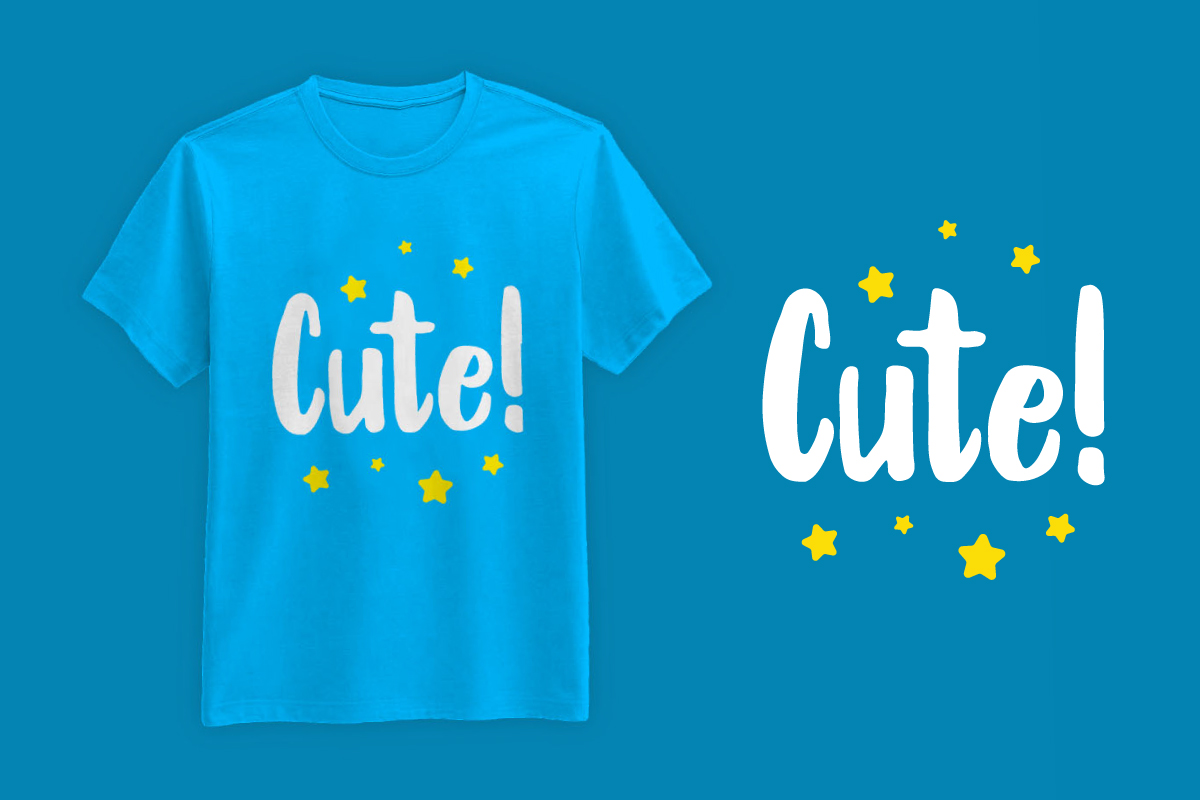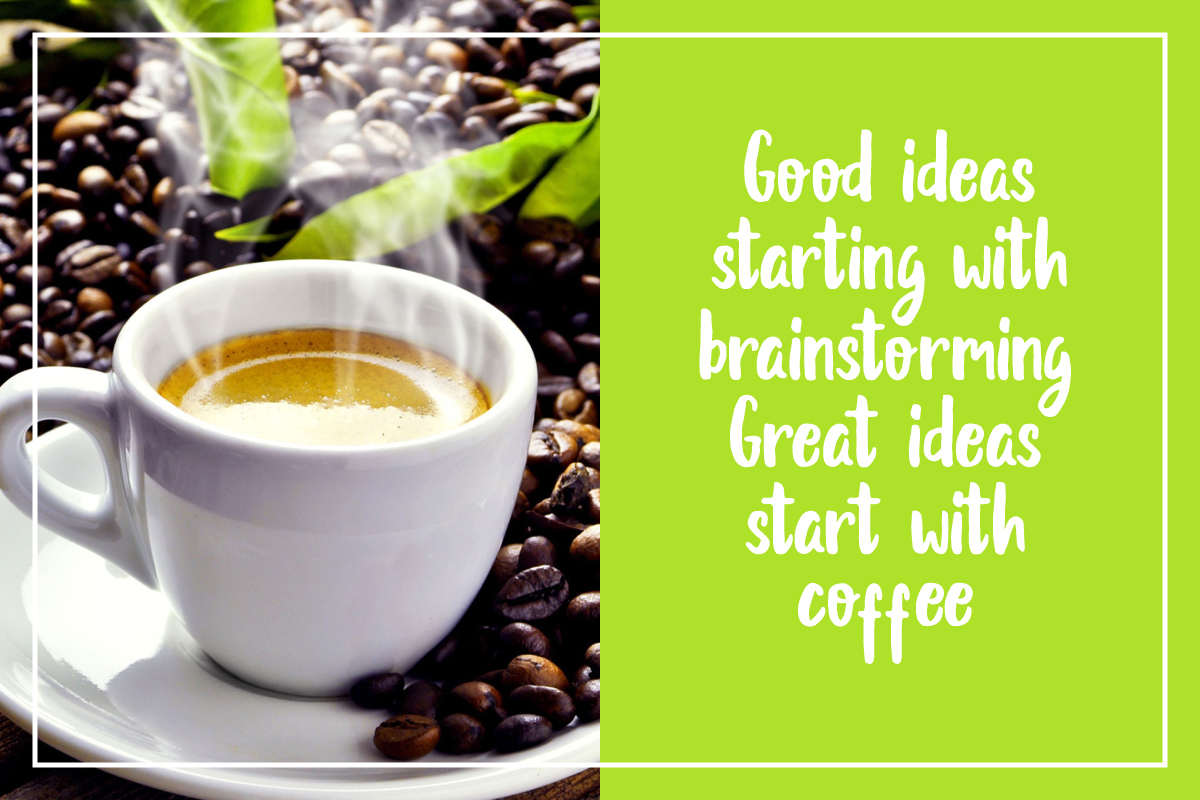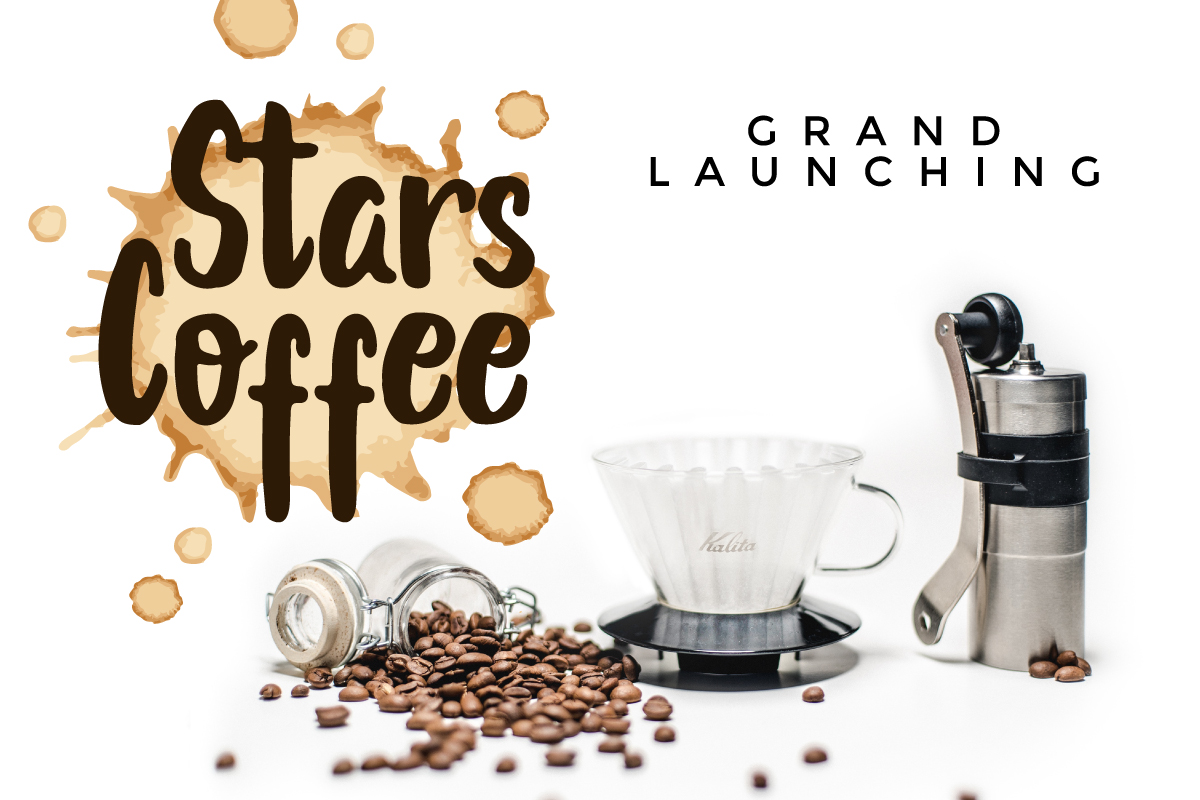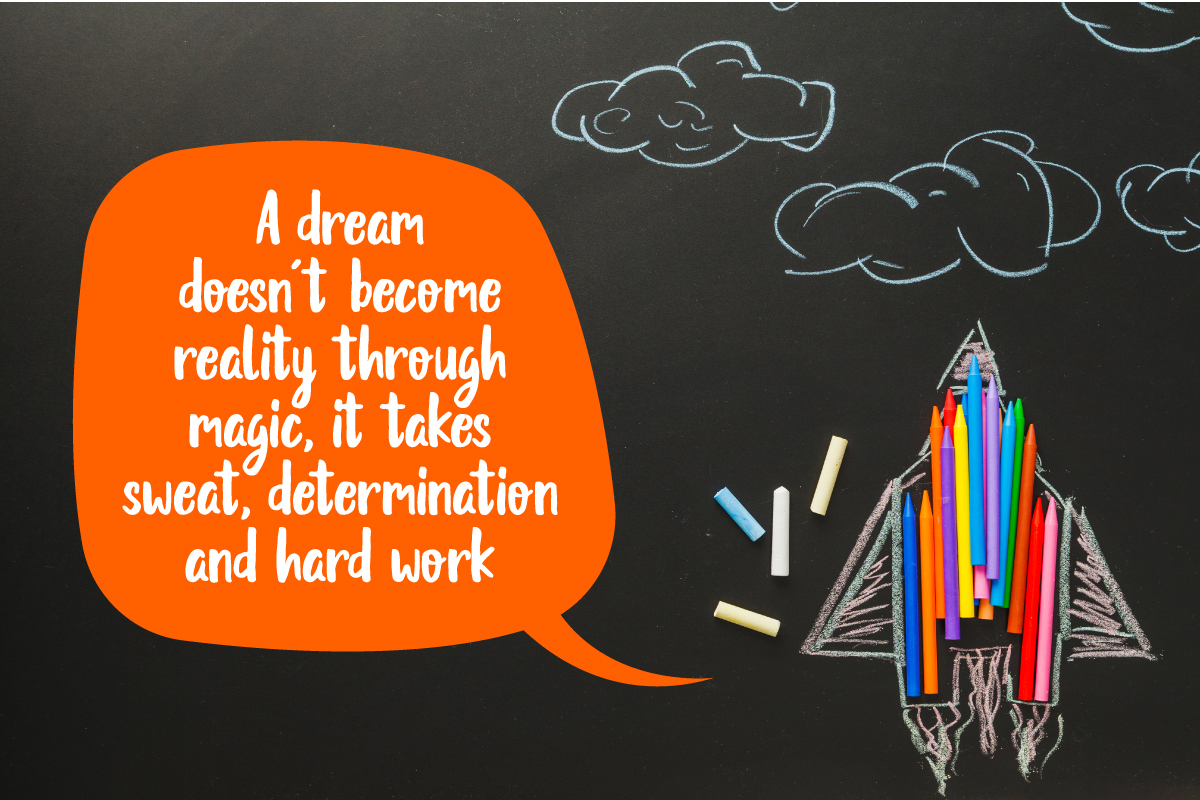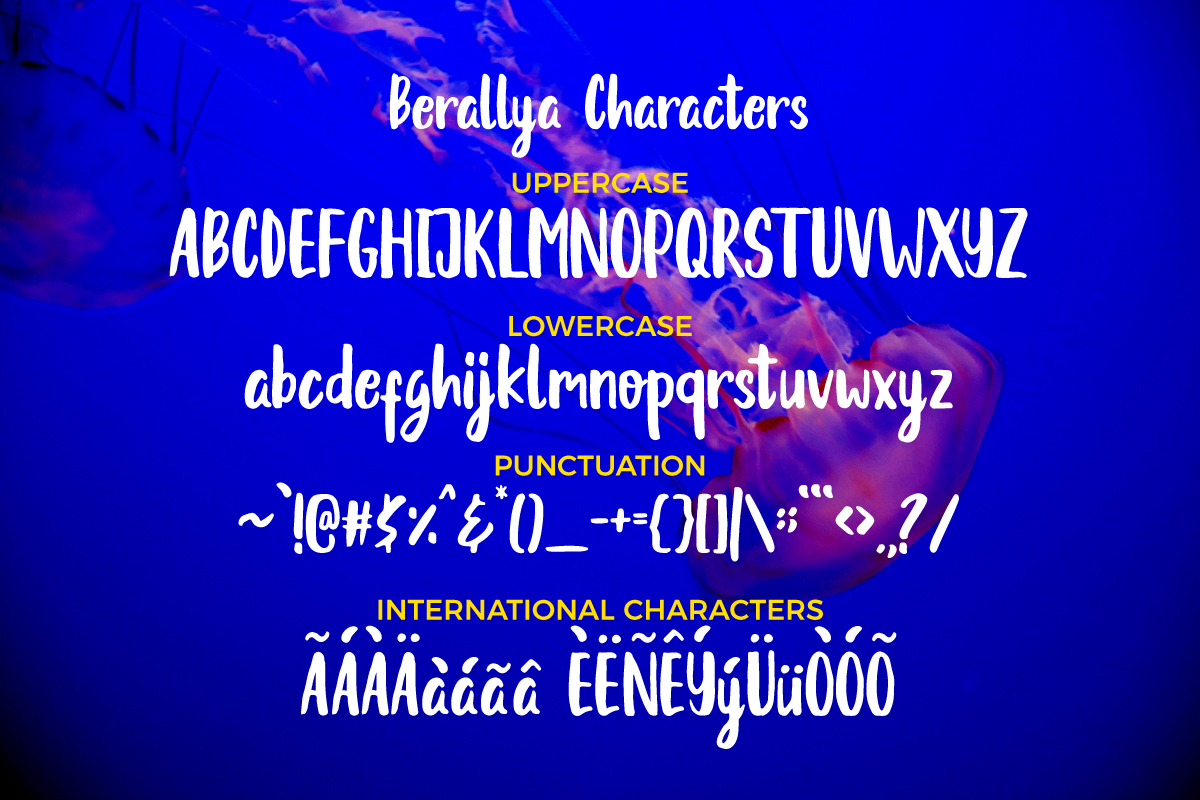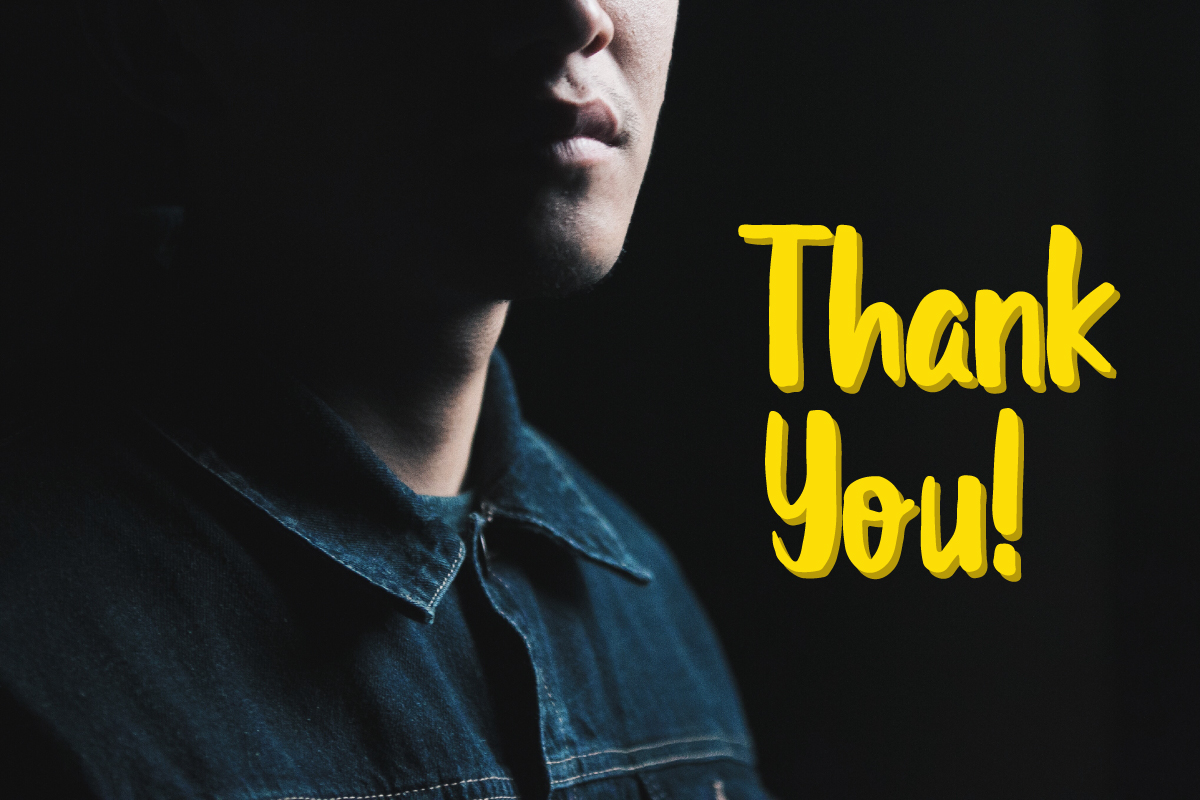
Berallya Font
About Berallya Font
Berallya is a playful, contemporary brush font. It has a stylish, playful design and was painted on paper before it was digitized and optimized.
It can be used for a large range of different projects.